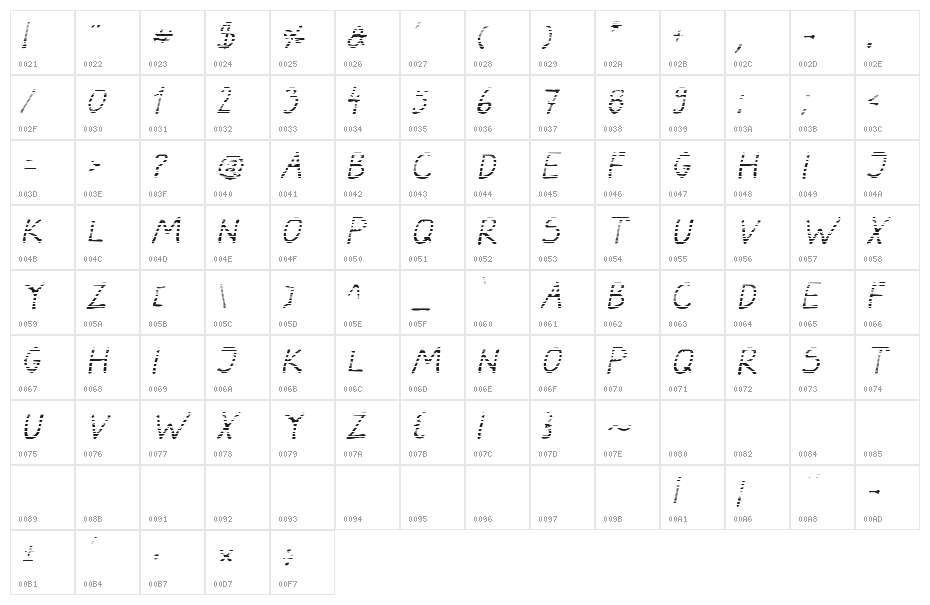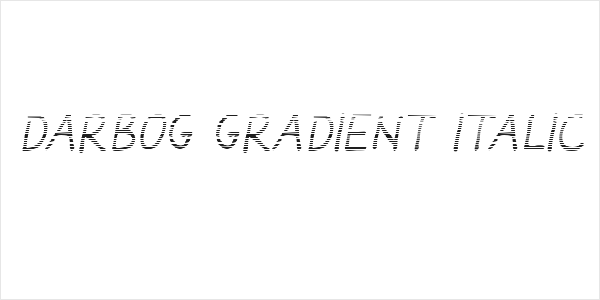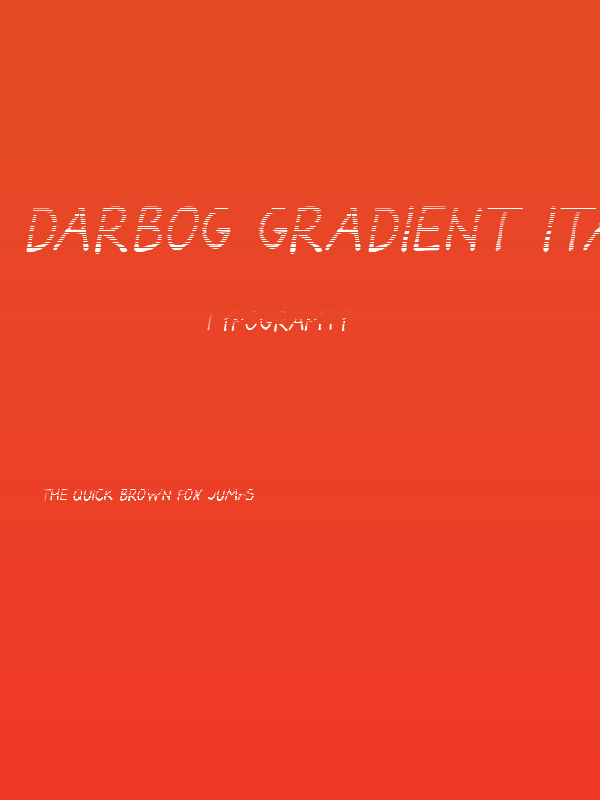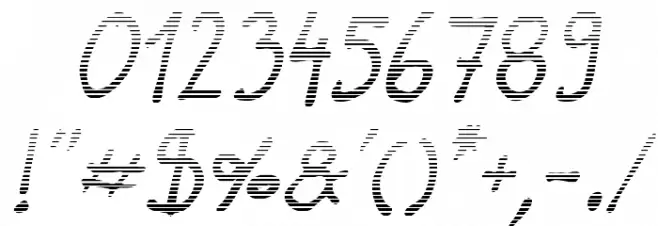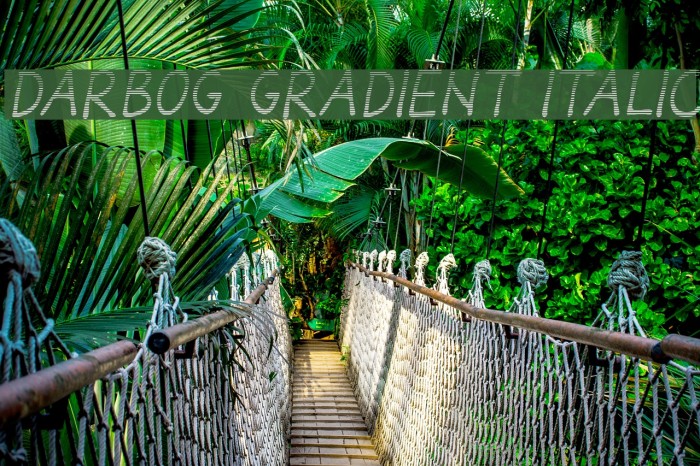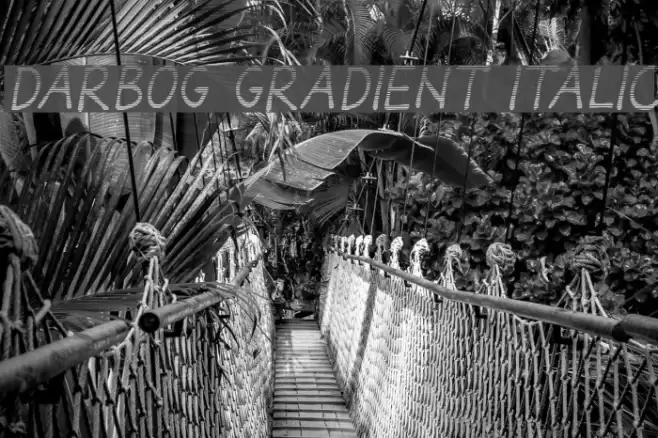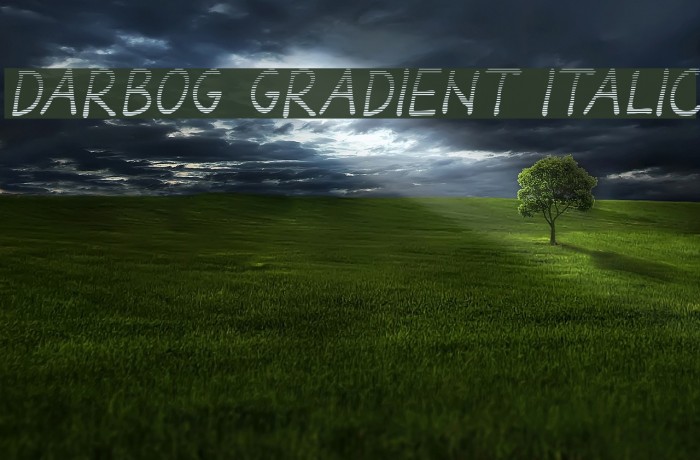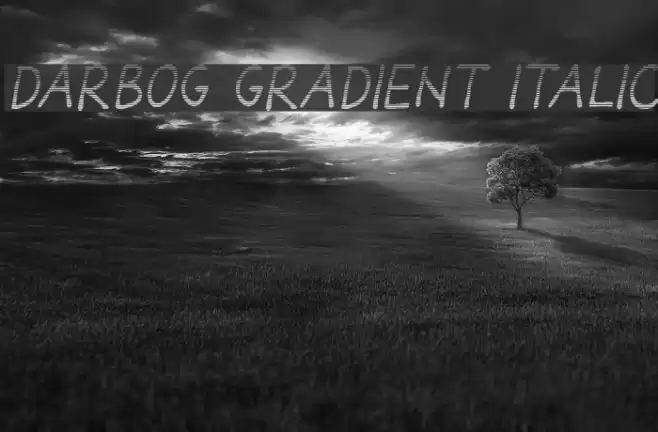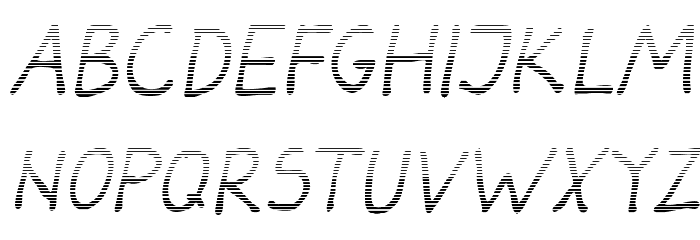
Darbog gradient Italic Font
Darbog gradient Italic Description
This font features a unique gradient effect with a slanted, italicized style. The characters are designed with a series of horizontal lines that create a dynamic visual texture, giving the appearance of movement or speed. The slant adds a sense of elegance and fluidity, making it stand out as a modern and stylish choice. The uppercase and lowercase letters maintain a consistent design, while the numerals and special characters complement the overall aesthetic. This font is ideal for projects that require a contemporary and eye-catching look.
| Proposed Projects | Ideal for branding, advertising, and digital media projects that aim to capture attention with a modern and dynamic look. |